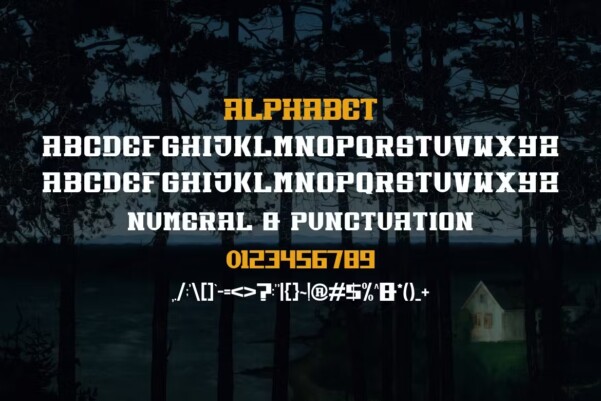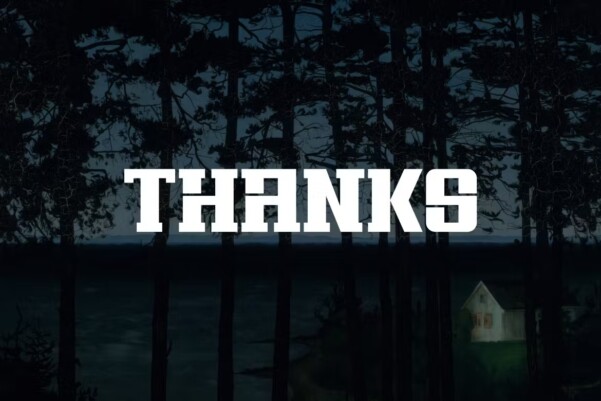
Red Derigo Font
Red Derigo Font -Modern Serif, is a modern and simple font, best used as a display for headings, logos, branding, magazines, product packaging and invitations. Red Derigo come with clean lines and smooth curves give any project an extra touch of class.